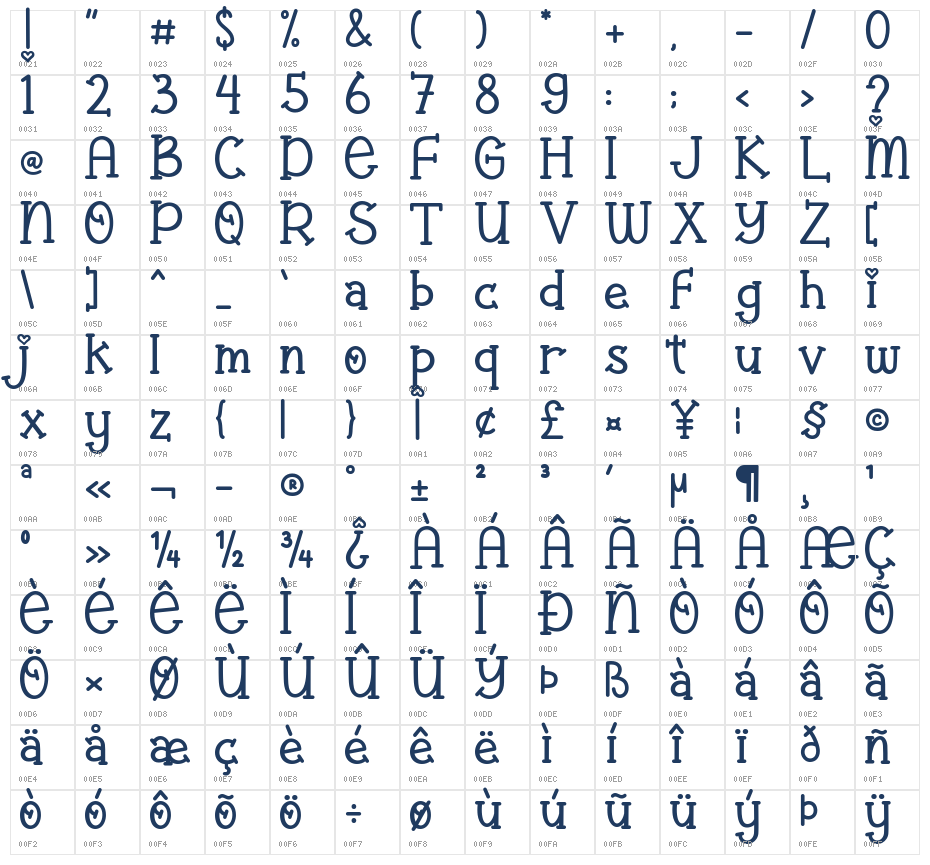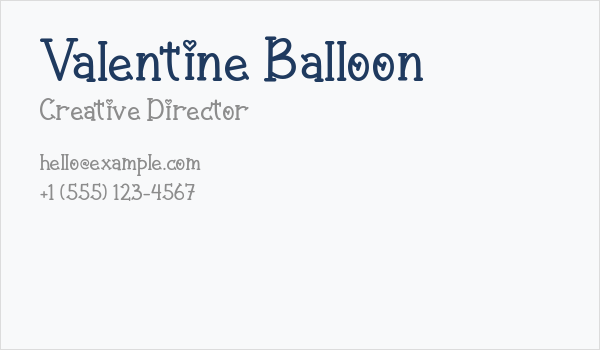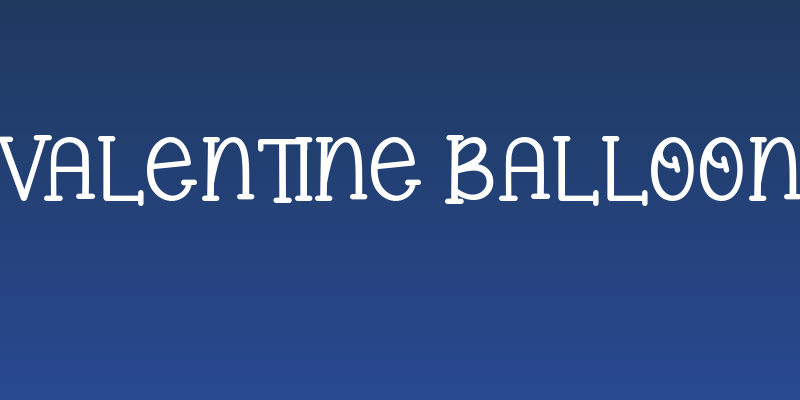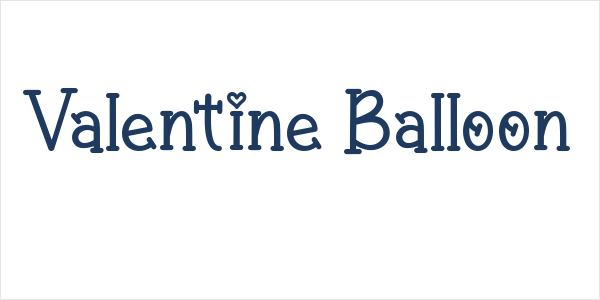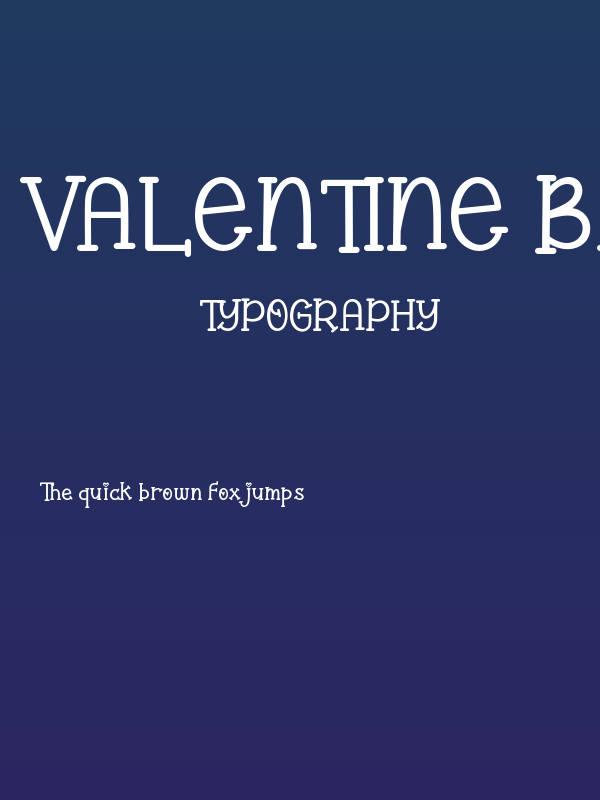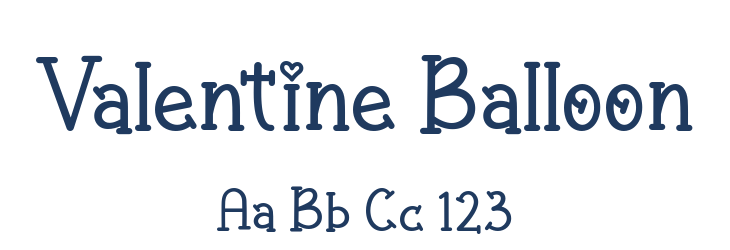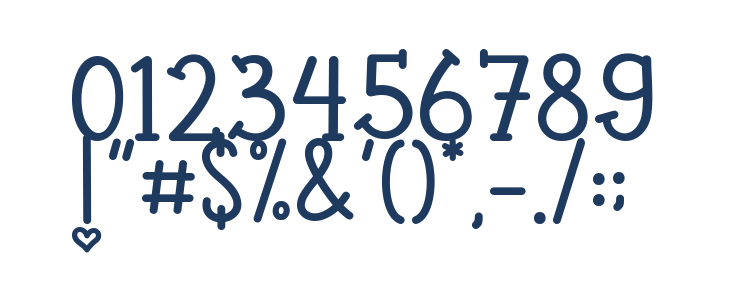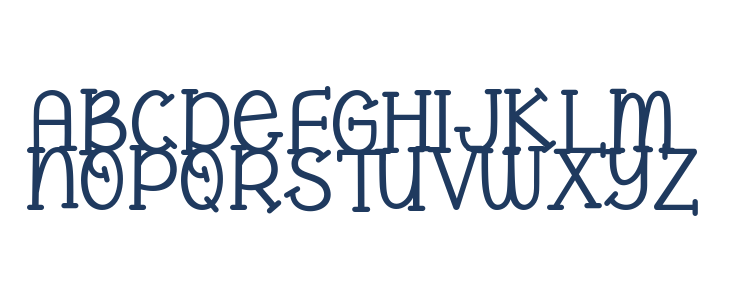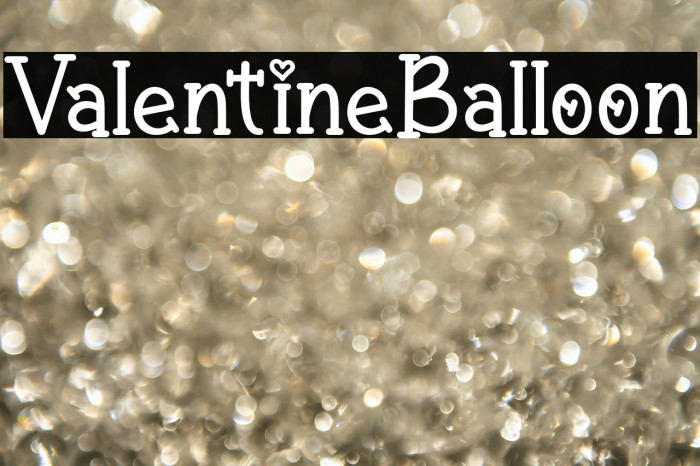
Valentine Balloon Font
Valentine Balloon Description
Playful, whimsical handwritten font with a casual, friendly appearance. Features irregular, slightly uneven strokes with decorative elements such as hearts and stars.
Valentine Balloon
| Overall Style | Playful, Casual, Whimsical |
| Use Case | Children's books, greeting cards, invitations, casual branding, playful logos. |